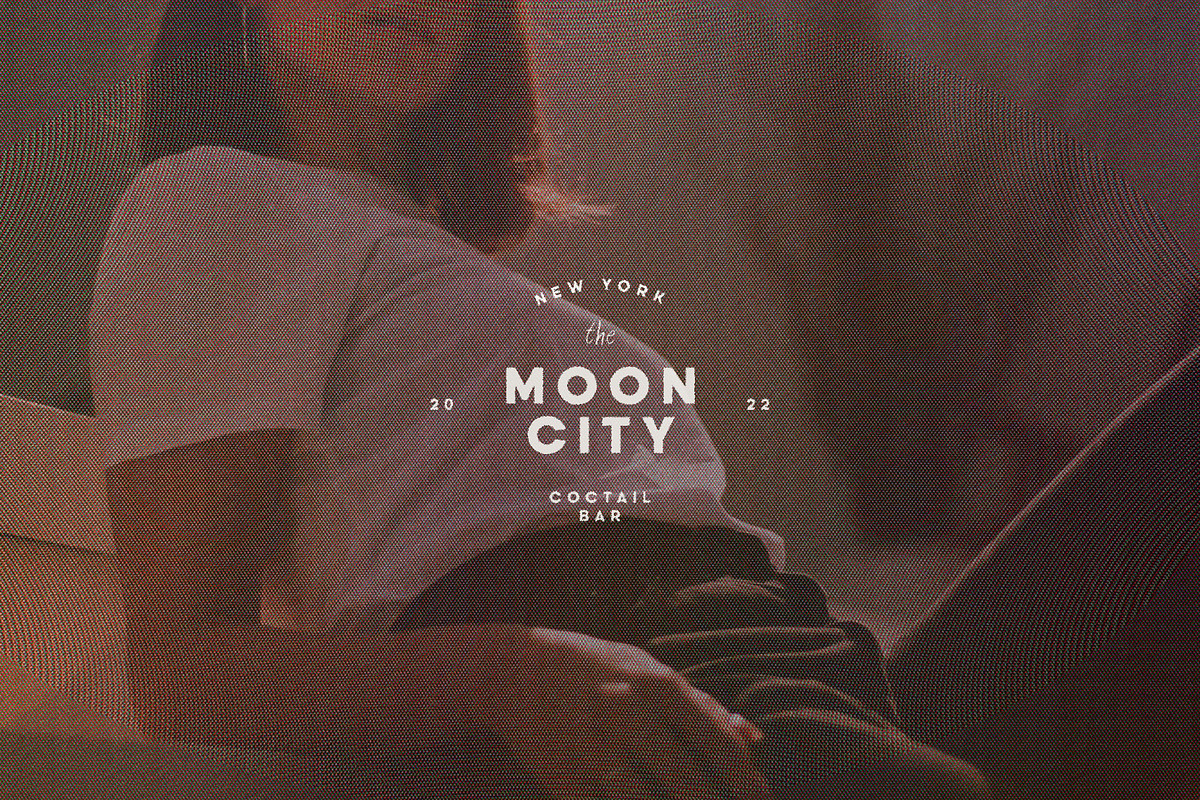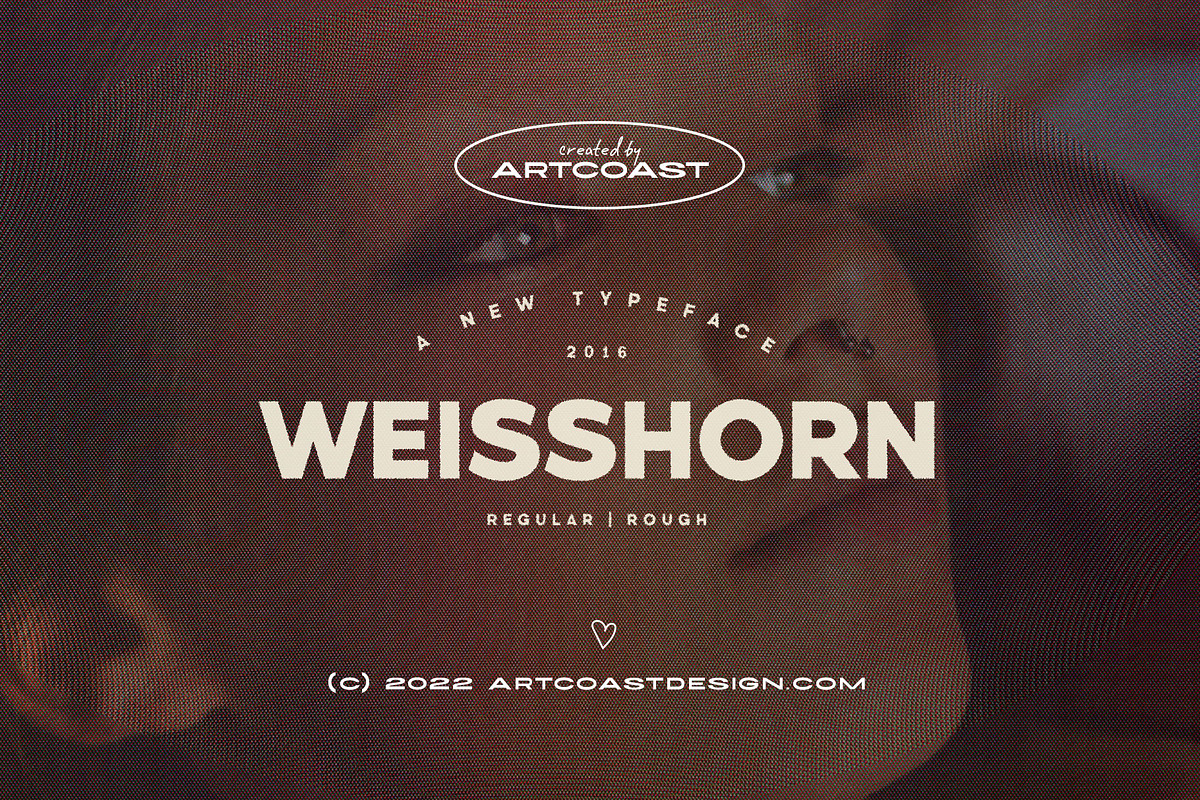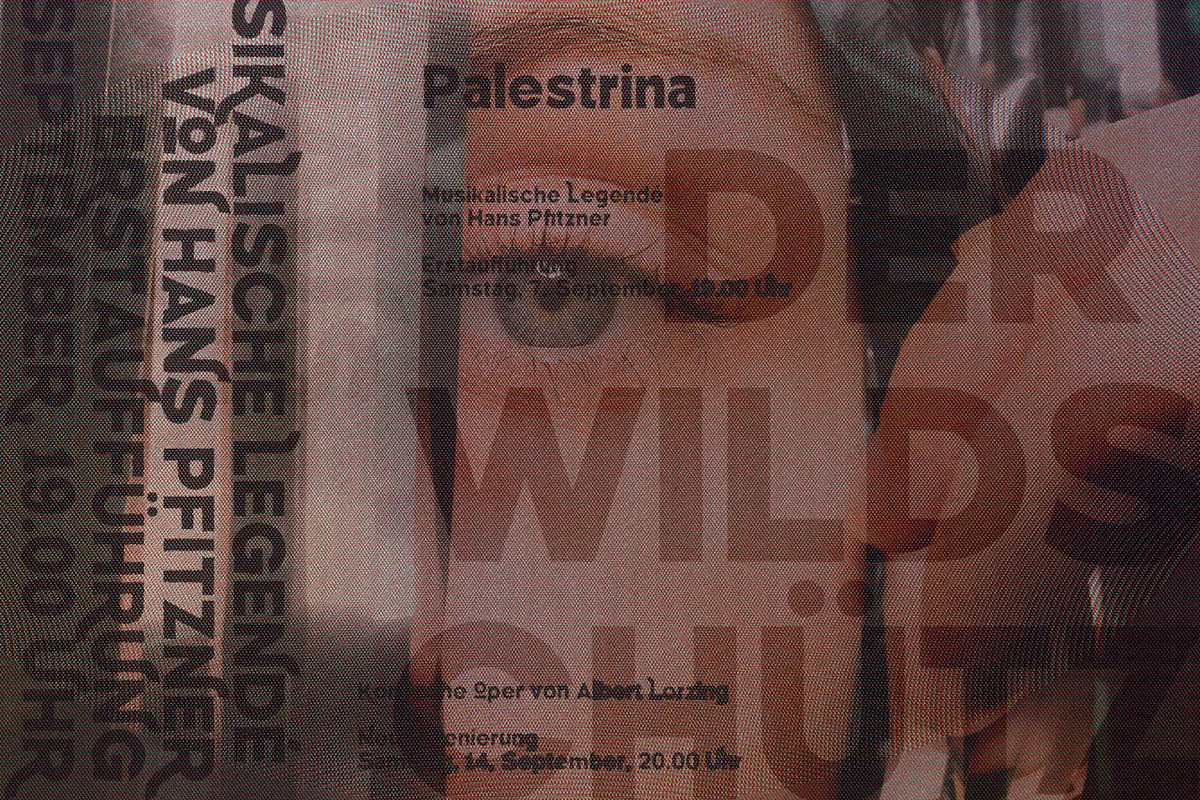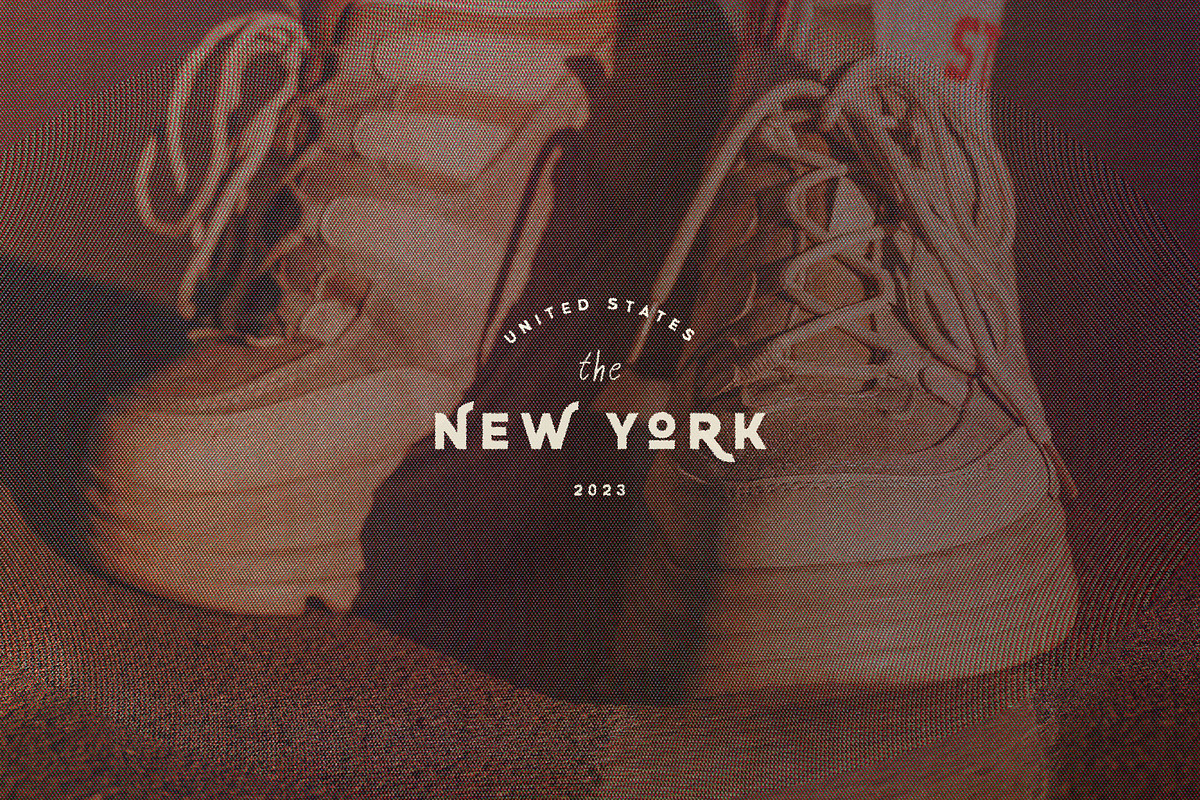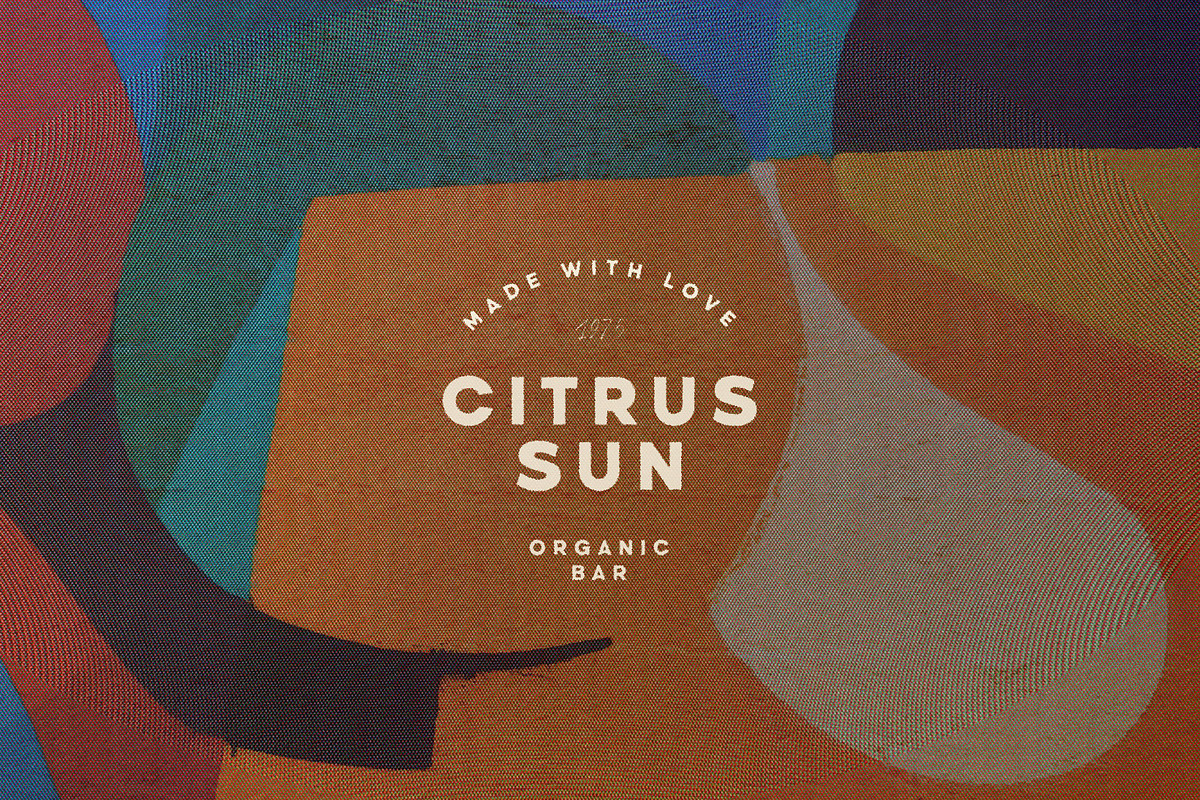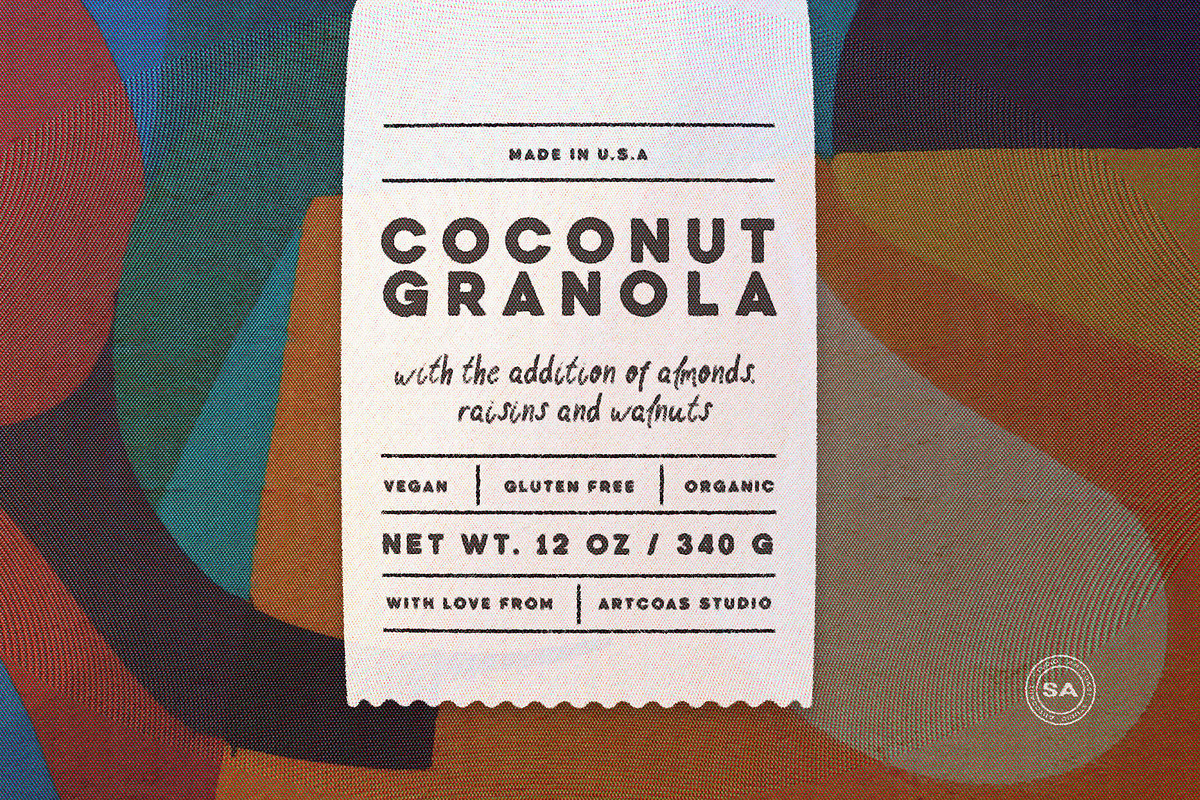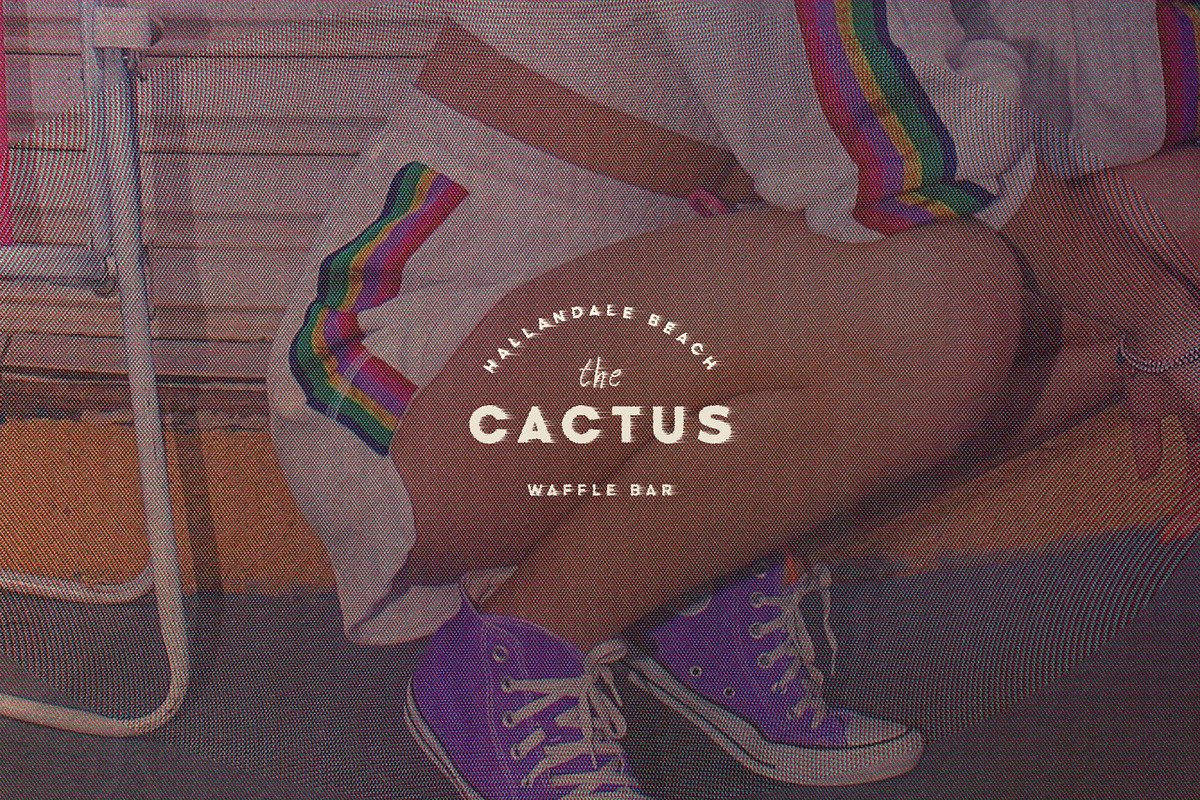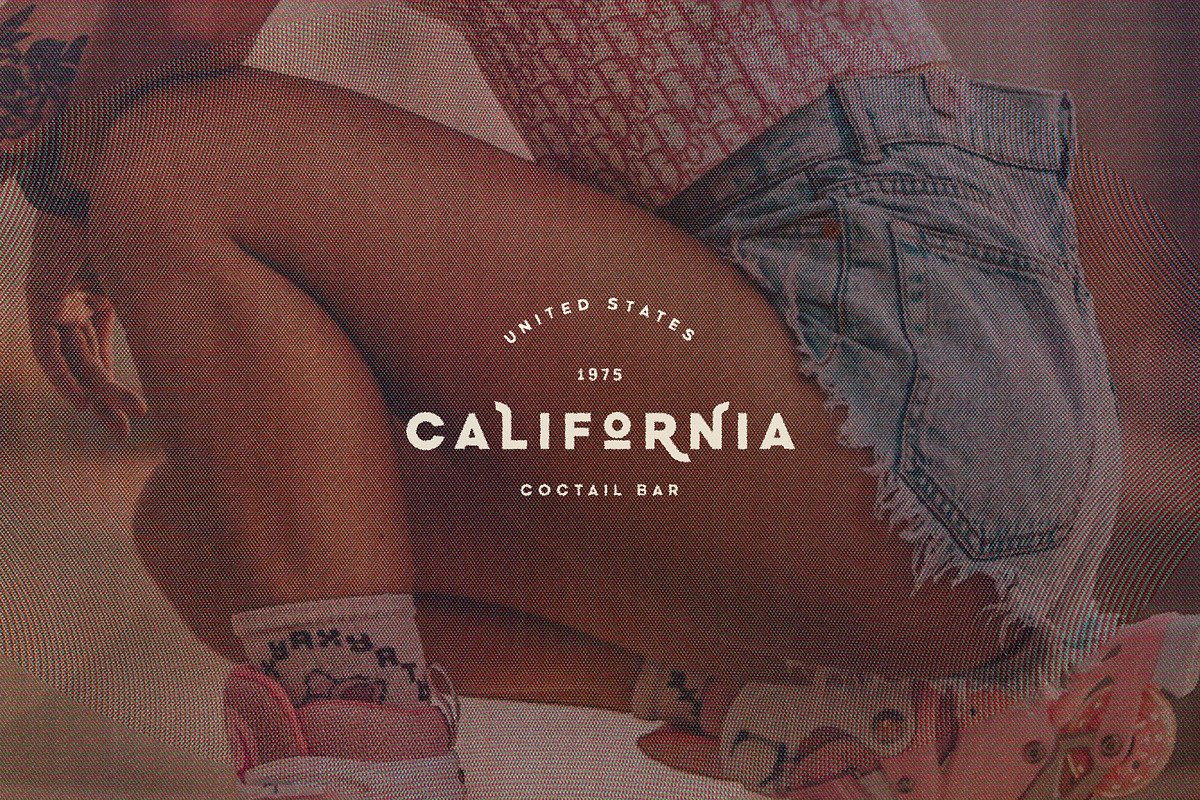
Weisshorn Typeface
Weisshorn Typeface by Artcoast Std. is a font selected for branding, posters, packaging, typography.
Why Weisshorn Typeface is worth a look
Weisshorn Typeface by Artcoast Std. fits naturally into Branding, posters, packaging, typography.